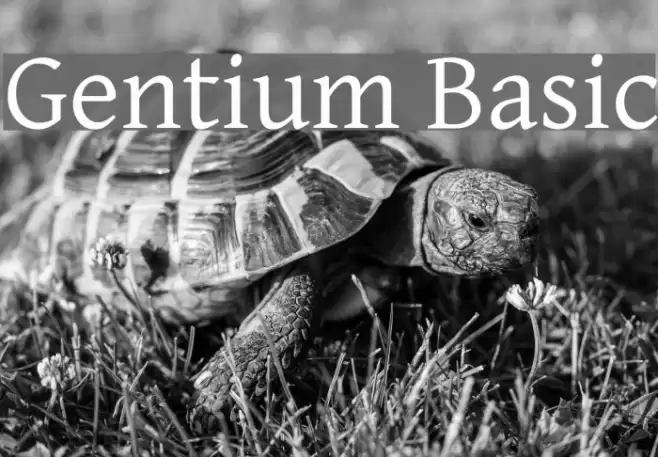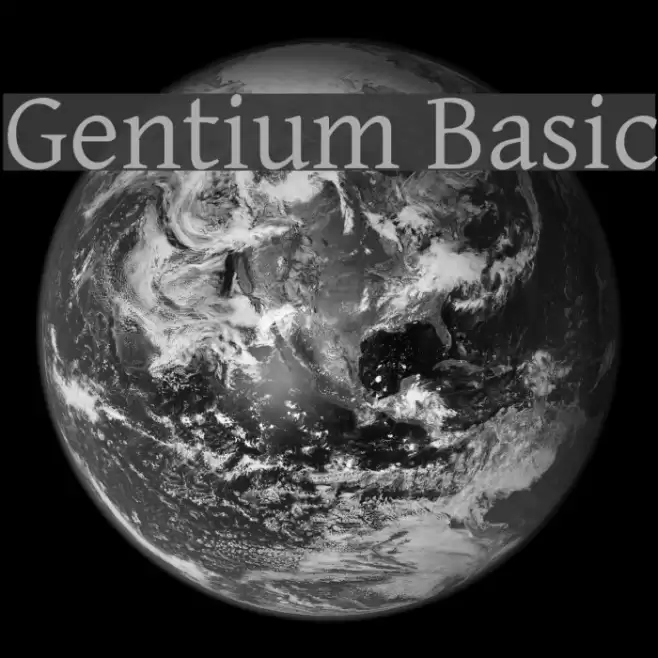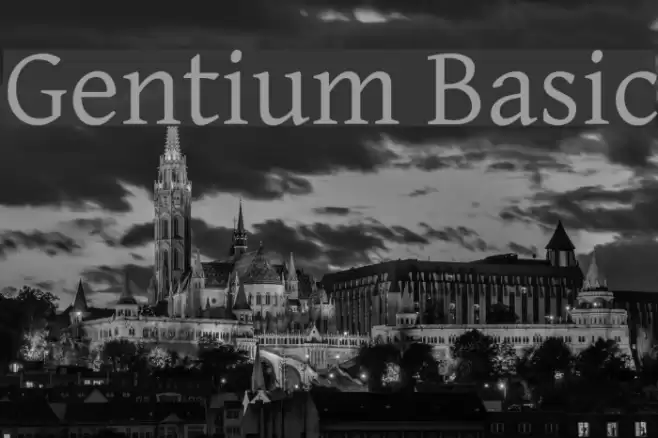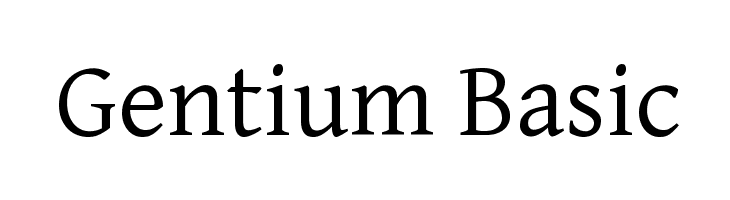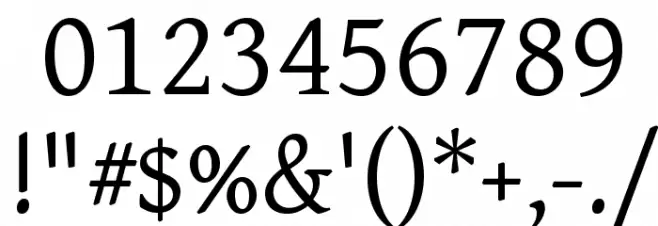
Gentium Basic Font
Gentium Basic Description
This font features a classic serif design with a harmonious balance between elegance and readability. The characters exhibit a moderate contrast in stroke thickness, providing a refined yet approachable appearance. The serifs are well-defined, adding a touch of sophistication without overwhelming the overall design. The font maintains a consistent weight throughout, ensuring clarity and legibility across various sizes. Its traditional style is complemented by a modern touch, making it versatile for both digital and print media. The spacing between characters is normal, allowing for smooth reading experiences in body text and headlines alike.
A classic serif font with elegant, readable characters and moderate contrast from Uncategorized fonts.
- Proposed Projects: Ideal for book typesetting, academic papers, formal invitations, and corporate branding.
- Overall Style: Classic
- Use Case: Body text, Headlines